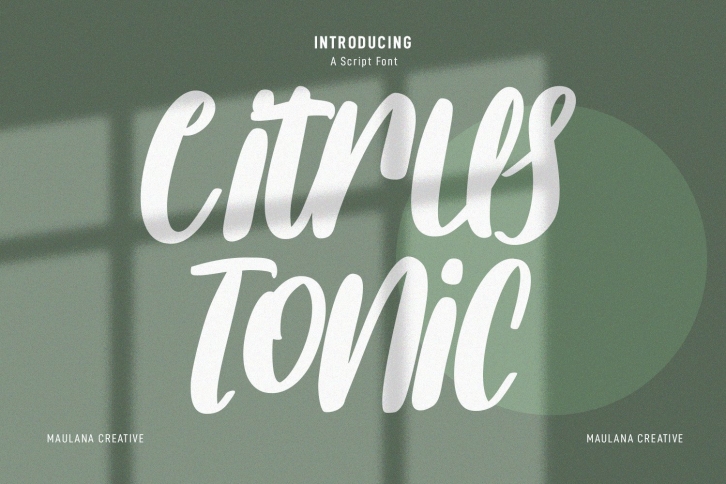
Citrus Tonic is a cool, bold, and assertive handwritten script font. Add this beautiful font to all your creative ideas and you will be amazed by the outcome generated!